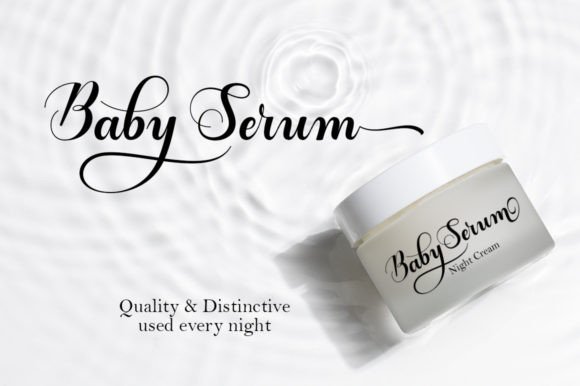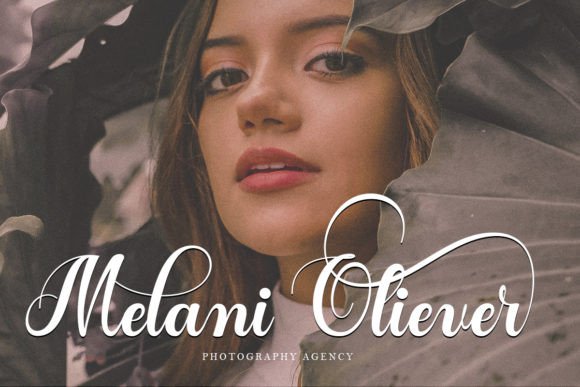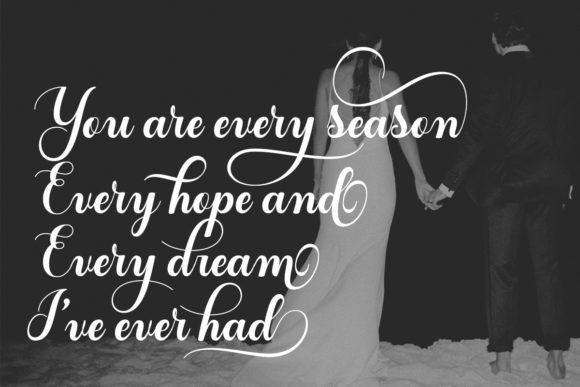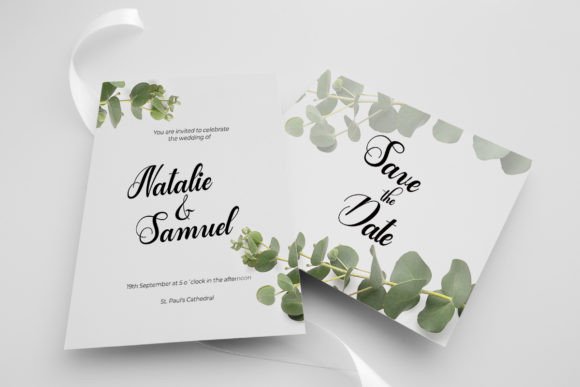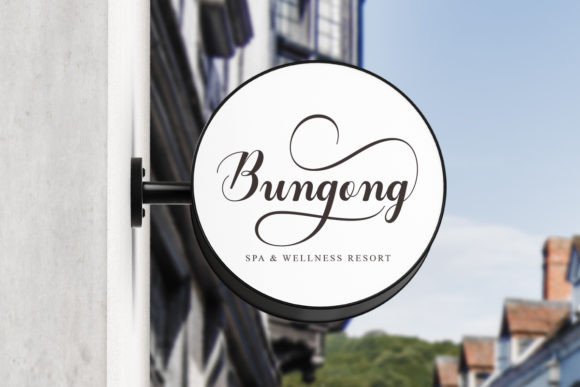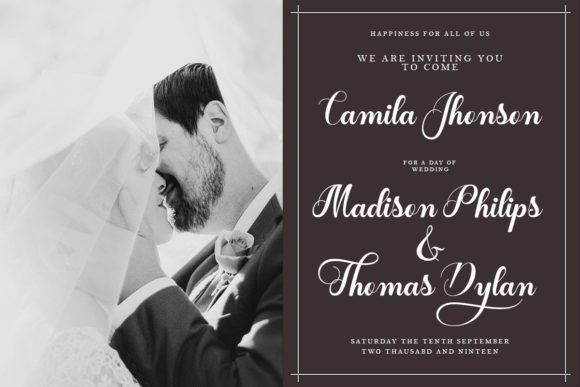
Introducing Bageton Font: A Beautiful Handwritten Script for Creative Projects
Are you a designer, crafter, or DIY enthusiast looking for a unique and elegant font to elevate your creative projects? Look no further than Bageton Font, a stunning handwritten script that’s perfect for a wide range of applications. In this article, we’ll explore the features and benefits of Bageton Font, and show you how it can add a touch of sophistication and style to your work.
What is Bageton Font?
Bageton Font is a beautiful handwritten font that’s designed to be natural, elegant, and perfect for a variety of creative projects. Its flowing script and delicate lines make it an ideal choice for projects that require a touch of sophistication and whimsy. Whether you’re designing invitations, product packaging, or branding materials, Bageton Font is sure to impress.
Key Features of Bageton Font
- Handwritten script: Bageton Font is a genuine handwritten script that’s full of character and personality.
- Natural and elegant: The font’s flowing lines and delicate curves make it perfect for projects that require a touch of sophistication and style.
- PUA encoded: Bageton Font is PUA (Private Use Area) encoded, which means you can access all of the glyphs and swashes with ease.
- Versatile: Bageton Font is suitable for a wide range of creative projects, including invitations, product packaging, offers, product design, crafts, labels, photography, watermarks, logos, branding, and more.
Benefits of Using Bageton Font
So why choose Bageton Font for your creative projects? Here are just a few benefits of using this beautiful handwritten font:
- Add a personal touch: Bageton Font’s handwritten script adds a personal touch to your projects, making them stand out from the crowd.
- Elevate your branding: Use Bageton Font to create stunning branding materials, such as logos, business cards, and letterheads.
- Perfect for DIY projects: Bageton Font is ideal for DIY enthusiasts and crafters who want to add a touch of elegance and sophistication to their projects.
- Easy to use: With its PUA encoding, Bageton Font is easy to use and customize, even for beginners.
Creative Ways to Use Bageton Font
So, how can you use Bageton Font in your creative projects? Here are a few ideas to get you started:
- Invitations: Use Bageton Font to create beautiful wedding invitations, birthday invitations, or any other type of invitation.
- Product packaging: Add a touch of elegance to your product packaging with Bageton Font.
- Branding materials: Use Bageton Font to create stunning branding materials, such as logos, business cards, and letterheads.
- Crafts: Bageton Font is perfect for crafters who want to add a touch of sophistication to their projects, such as handmade cards, gift tags, and scrapbooking.
- Photography: Use Bageton Font to create beautiful watermarks or overlays for your photos.
In conclusion, Bageton Font is a beautiful handwritten font that’s perfect for designers, crafters, and DIY enthusiasts who want to add a touch of elegance and sophistication to their creative projects. With its natural and elegant script, PUA encoding, and versatility, Bageton Font is an excellent choice for a wide range of applications. So why wait? Download Bageton Font today and start creating stunning creative projects that stand out from the crowd!